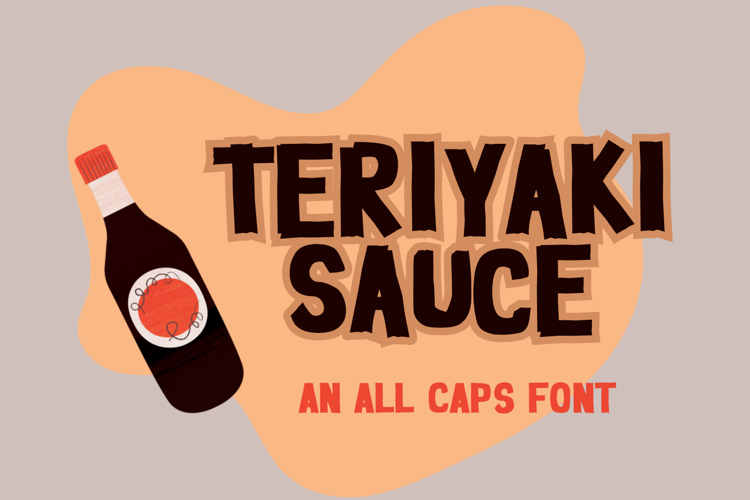
TERIYAKI SAUCE Font
Teriyaki Sauce is a bold and quirky display font. Use uppercase letters to get a bit of wacky style and use the lowercase letters to get the regular style. Suitable for any projects, banners, social media, book title, product packaging, posters, invitations, cards and so much more.